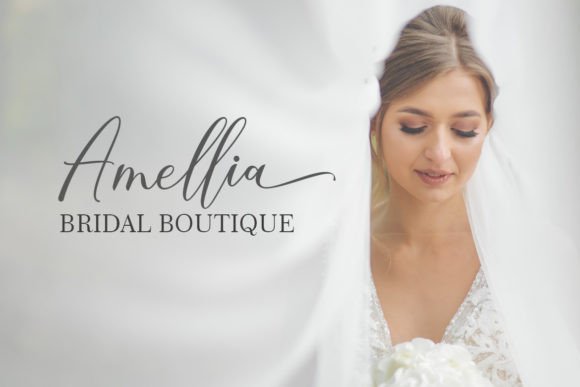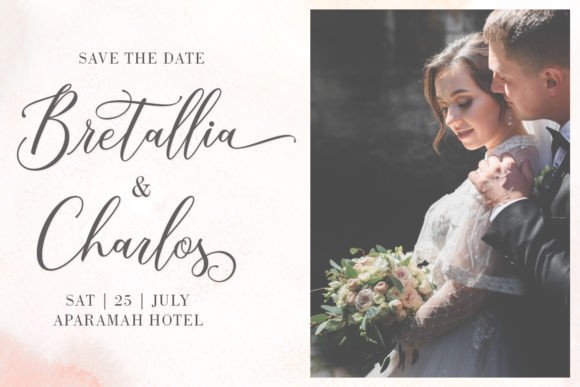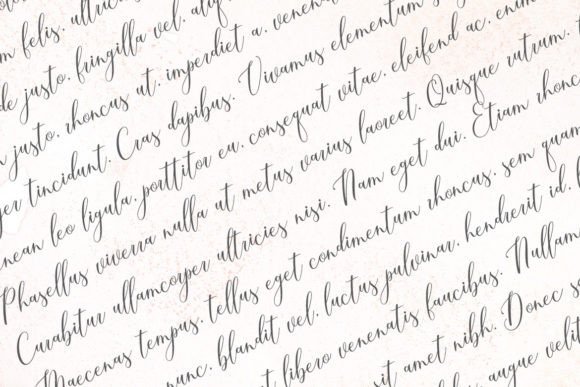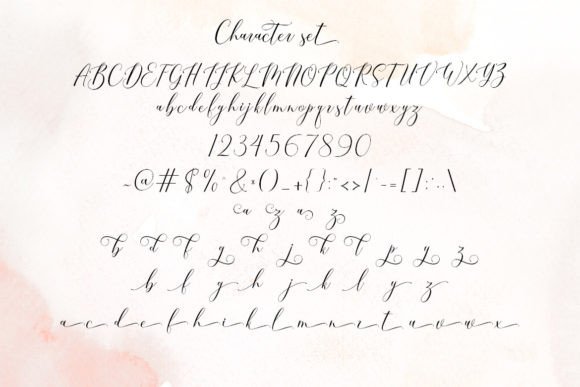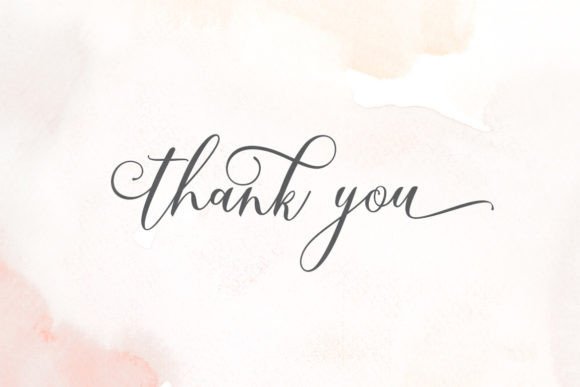
The Perfect Touch of Elegance: Bretallia Font
As a designer, you know the feeling of staring at a blank page, waiting for inspiration to strike. It’s that moment when everything comes together – the perfect font, the right color palette, and a dash of creativity. For me, it’s the moment I discovered the Bretallia Font, and I knew I had found something special.
The Bretallia Font is a delicate and elegant script font that exudes modern sophistication. With its thin letterforms and fluid strokes, it adds a touch of refinement to any design. Whether you’re creating wedding invitations, branding, or editorial design, this font is sure to make your work stand out. Its versatility and timeless appeal make it a valuable addition to any designer’s toolkit.
With the Bretallia Font, you’ll be able to elevate your designs and give them a sense of luxury and refinement. Its elegant feel is sure to impress your clients and leave a lasting impression. Whether you’re a seasoned designer or just starting out, this font is a must-have for anyone looking to add a touch of sophistication to their work.
- Unique Characteristics: Bretallia Font features a unique blend of modern and vintage elements, with intricate details and ornaments that add a touch of elegance to any design.
- Font Weight and Style: Bretallia Font comes in 6 different weights (Thin, Light, Regular, Medium, Bold, and Black) and 2 styles (Regular and Italic) to cater to various design needs.
- Glyphs and Characters: The font includes over 700 glyphs and characters, including ligatures, swashes, and ornaments, making it a versatile choice for designers and typographers.
I’ve had the chance to work with Bretallia Font on a recent design project, and I must say it’s an interesting font to work with. Here are my honest thoughts on what works well and what doesn’t.
✨ Bretallia Font has a unique, handwritten feel that can add a personal touch to your designs. It’s perfect for projects that require a more creative and artistic approach.
- ✨ Great for title and heading fonts, as it grabs attention and sets the tone for the content.
- ✨ The font’s imperfections and irregularities make it feel more authentic and human, which can be great for branding and marketing materials.
⚠️ While Bretallia Font is great for creative projects, it may not be the best choice for formal or technical documents, as it can be difficult to read in small sizes and large blocks of text.
- ⚠️ The font’s irregularities can make it challenging to achieve consistency in your designs, especially when working with text-heavy content.
- ⚠️ Some characters may not be as legible as others, which can affect the overall readability of your designs.
Bretallia Font is a great addition to any designer’s toolkit, but it’s essential to use it judiciously. When used correctly, it can add a touch of creativity and personality to your designs. However, it may not be the best choice for every project.
The Bretallia font is ideal for:
- Creating elegant and sophisticated designs.
- Adding a touch of luxury to your branding and marketing materials.
- Designing invitations, menus, and other print materials that require a high-end look.